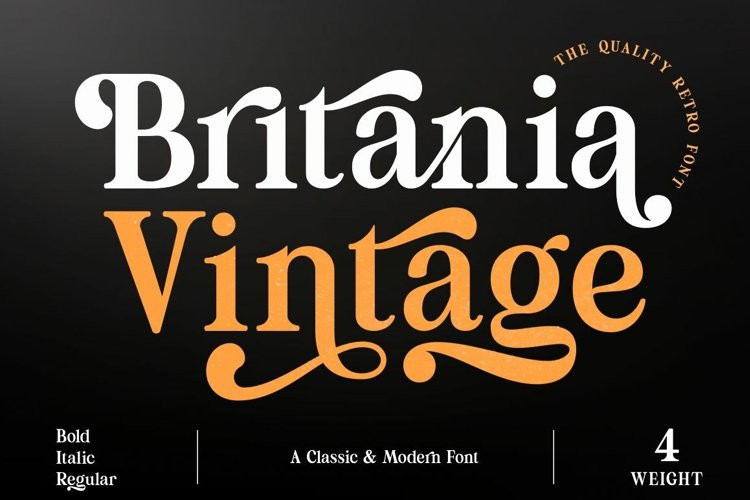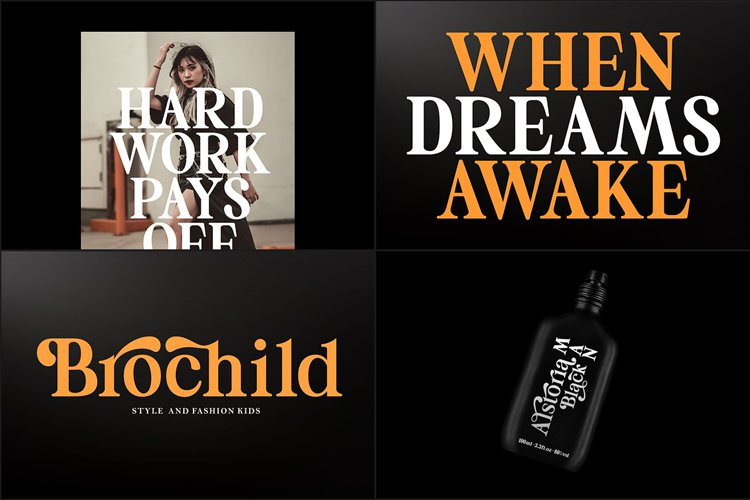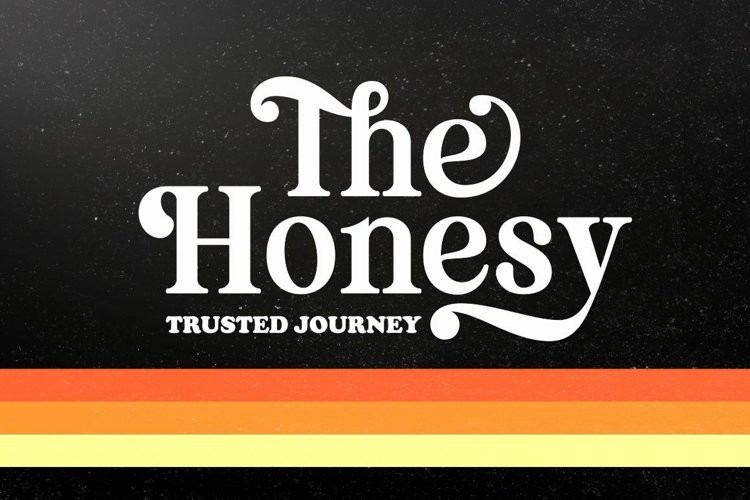
Britania Vintage Font
Britania Vintage FontBritania Vintage is a mix of retro and modern serif font styles, with these tight curves giving traditional groovy, luxury and versatility. Britania Vintage is made with a high degree of legibility and is perfect for nostalgic projects, vintage logos, wedding designs, social media posts, advertisements, product packaging, product designs, labels, photography, watermarks, invitations, stationery and more.